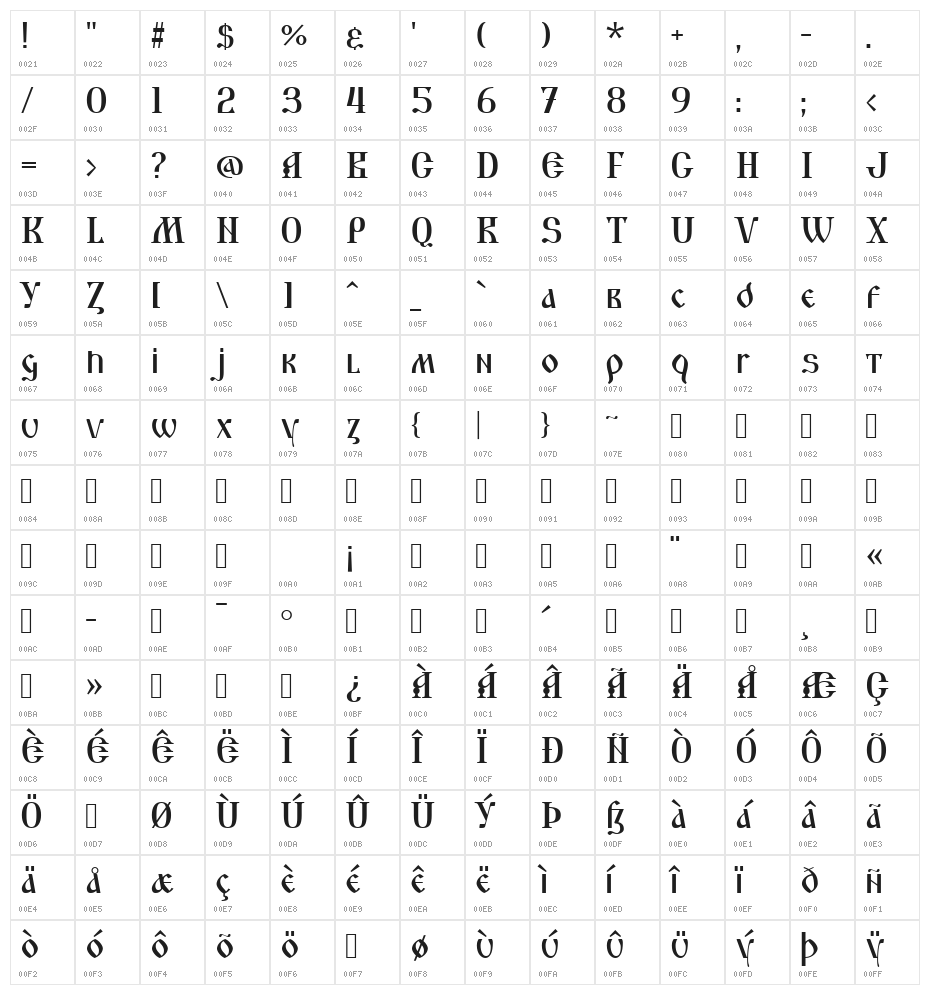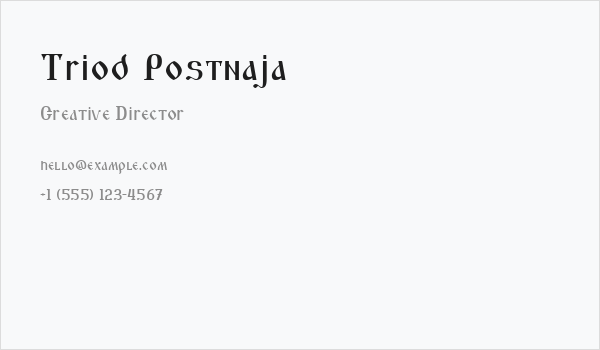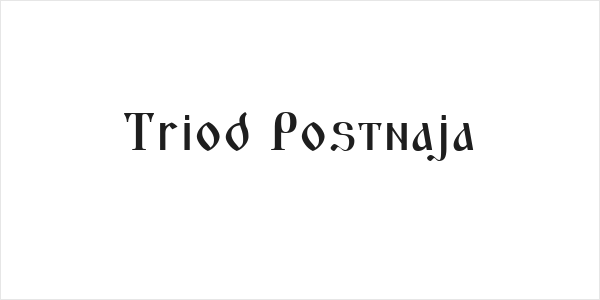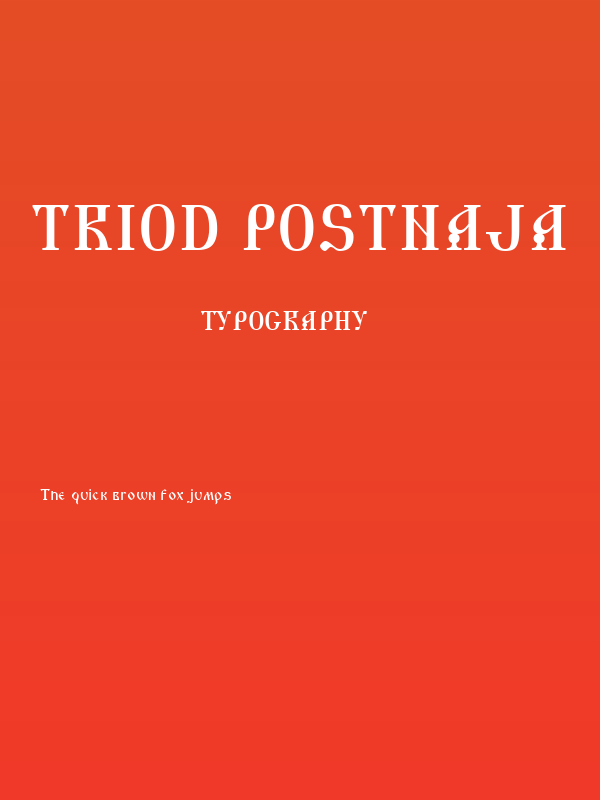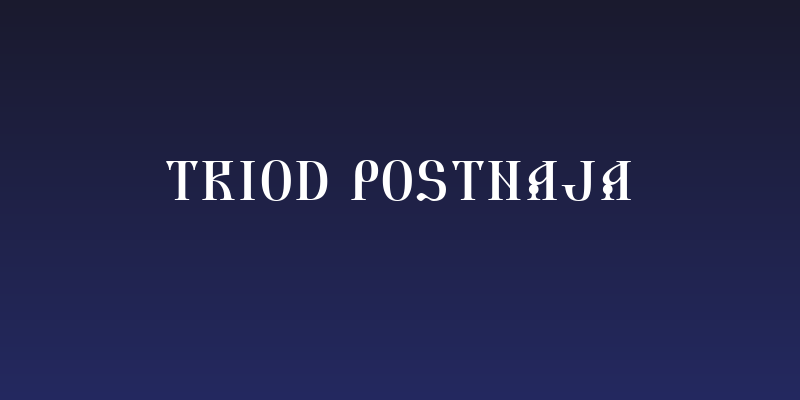
Triod Postnaja Font
Triod Postnaja Description
This font features a unique blend of traditional and modern elements, characterized by its bold, angular serifs and distinct letterforms. The uppercase letters exhibit a strong presence with sharp edges and a slightly condensed appearance, while the lowercase letters maintain a consistent style with subtle curves and flourishes. The numerals are robust and align well with the overall aesthetic, providing a cohesive look. Special characters are designed with the same attention to detail, ensuring versatility and readability across various applications.